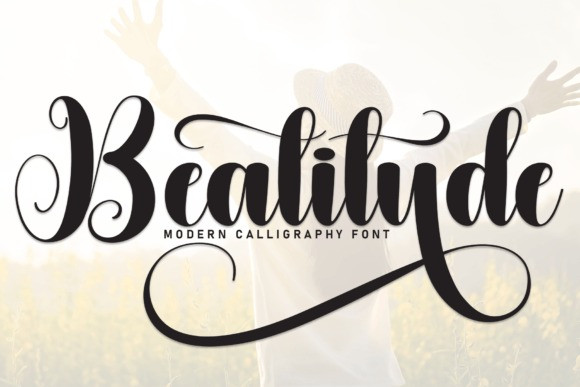
Beatitude Font
Beatitude Font is a sweet and friendly handwritten font. Fresh and casual, this font is ideal for writing wedding invitations, cards, or any other design that might need a lovely touch.